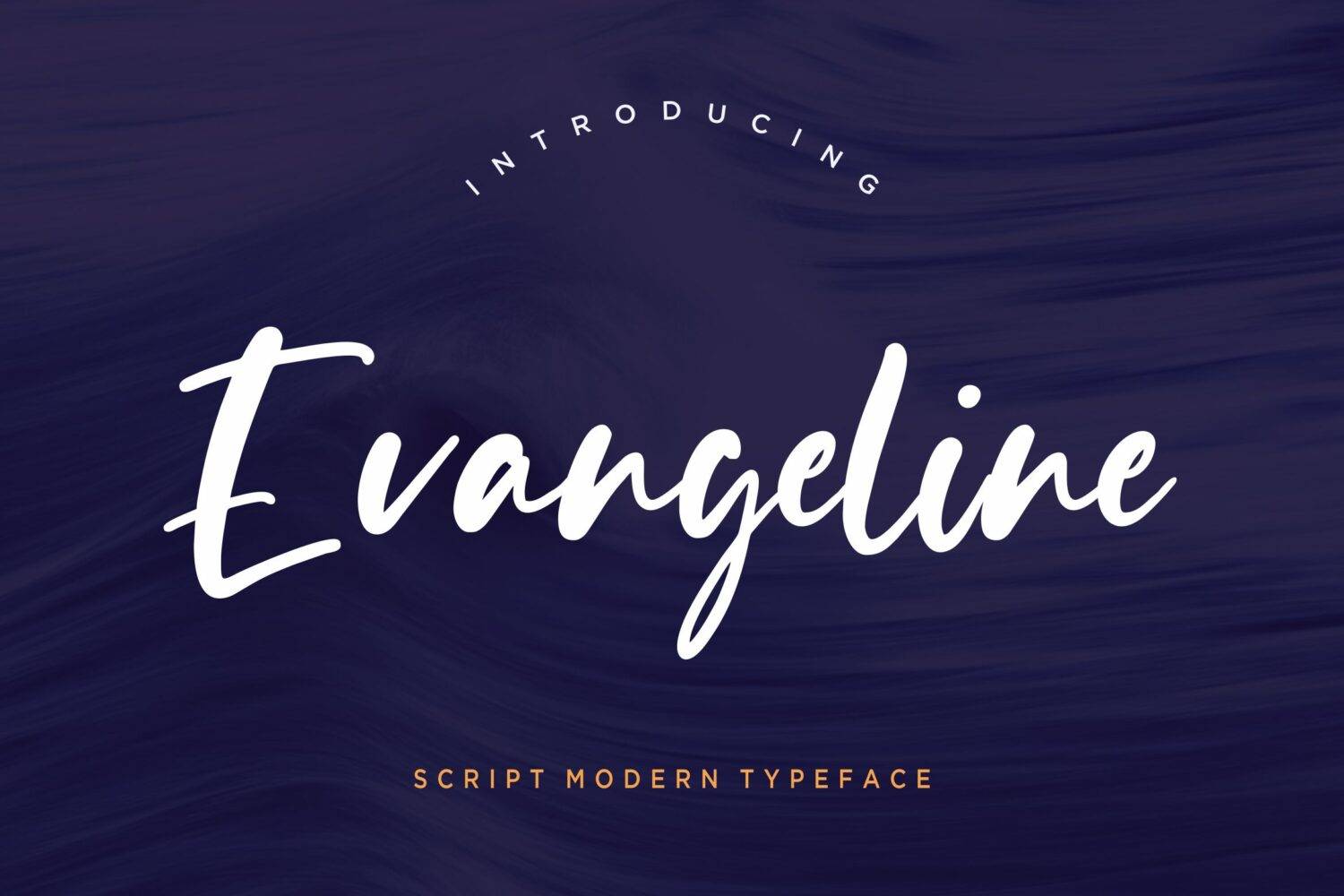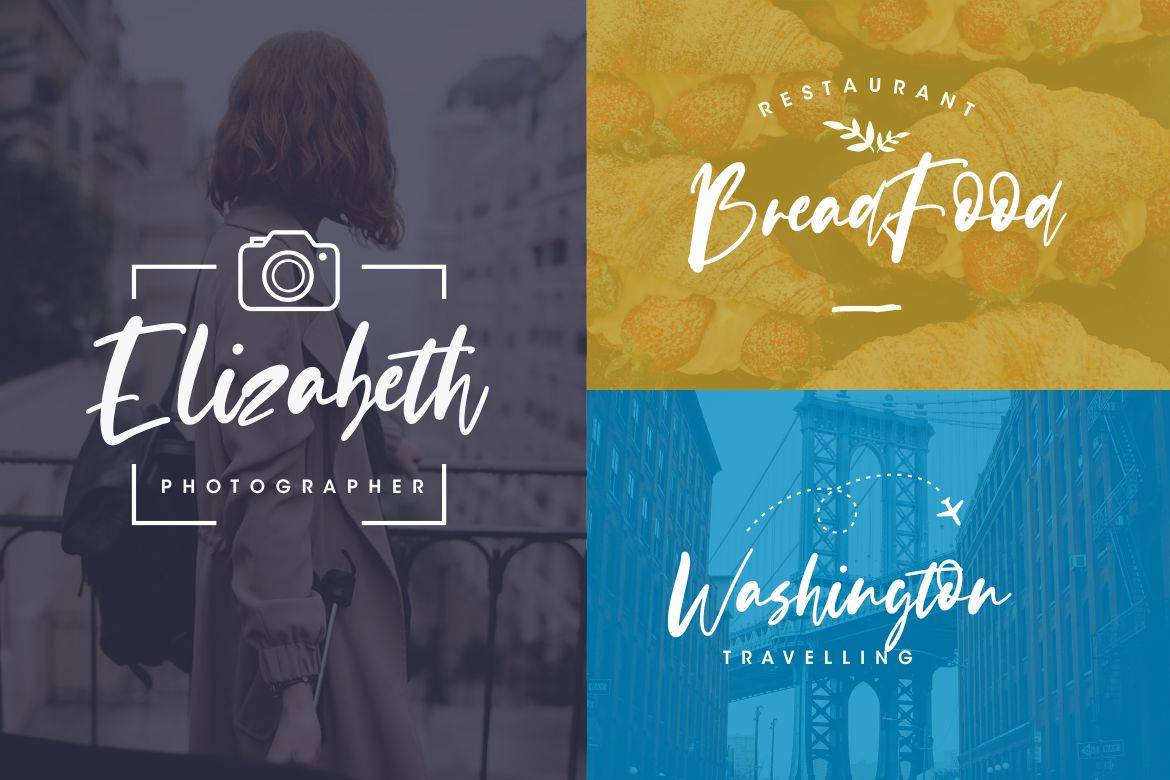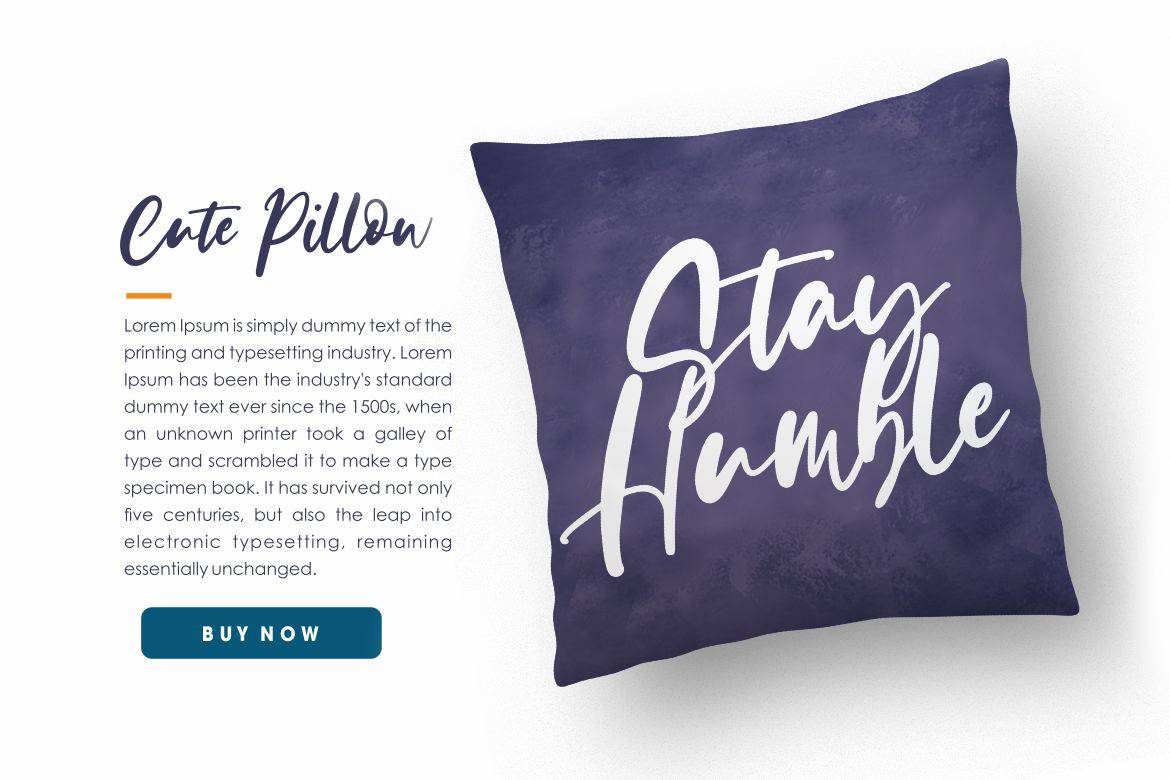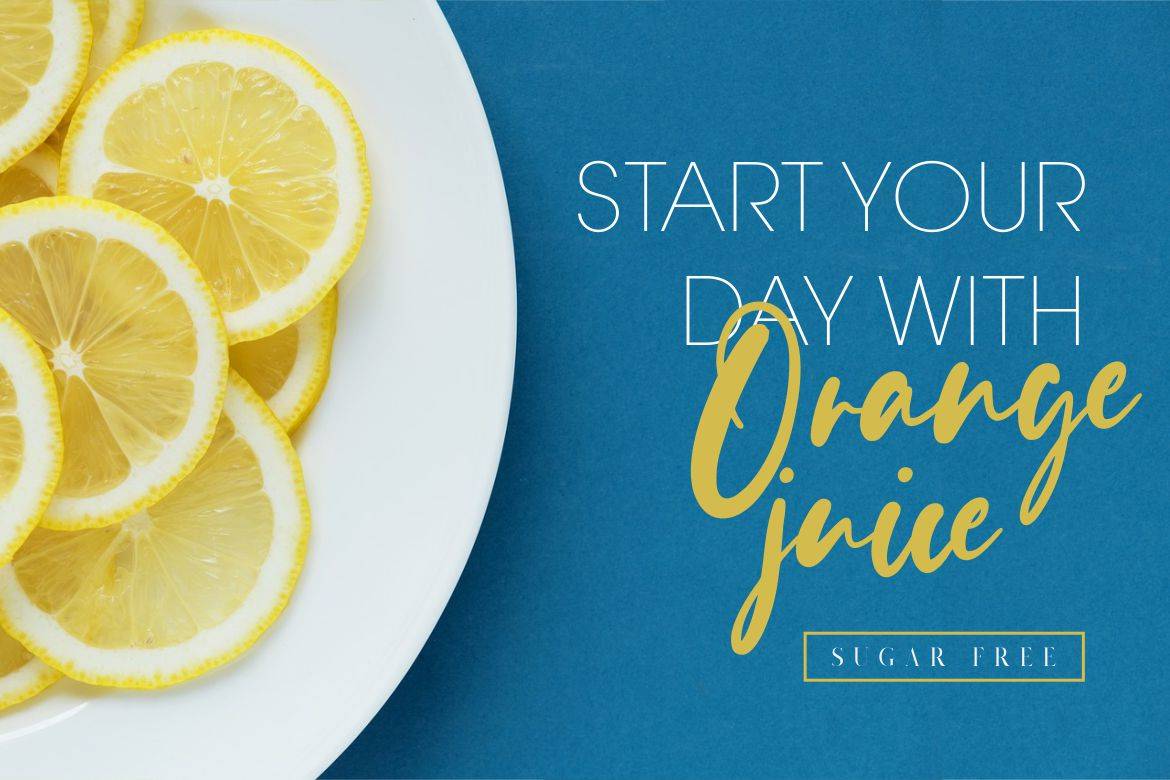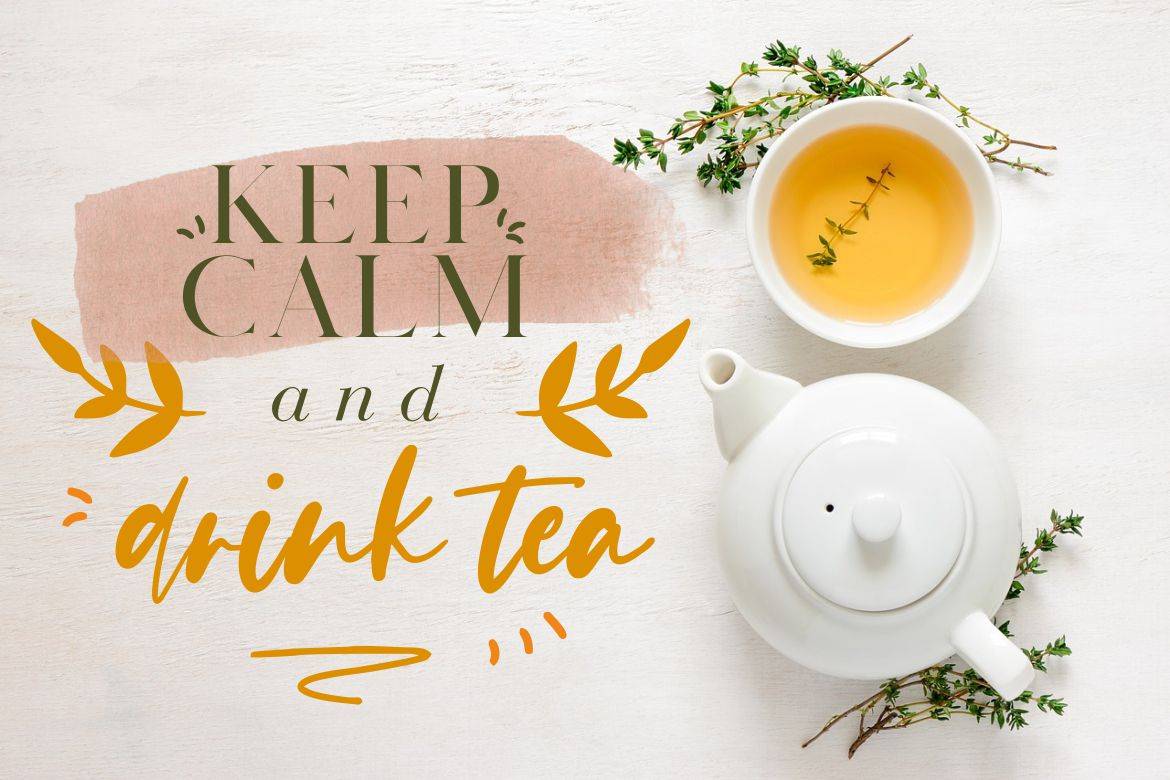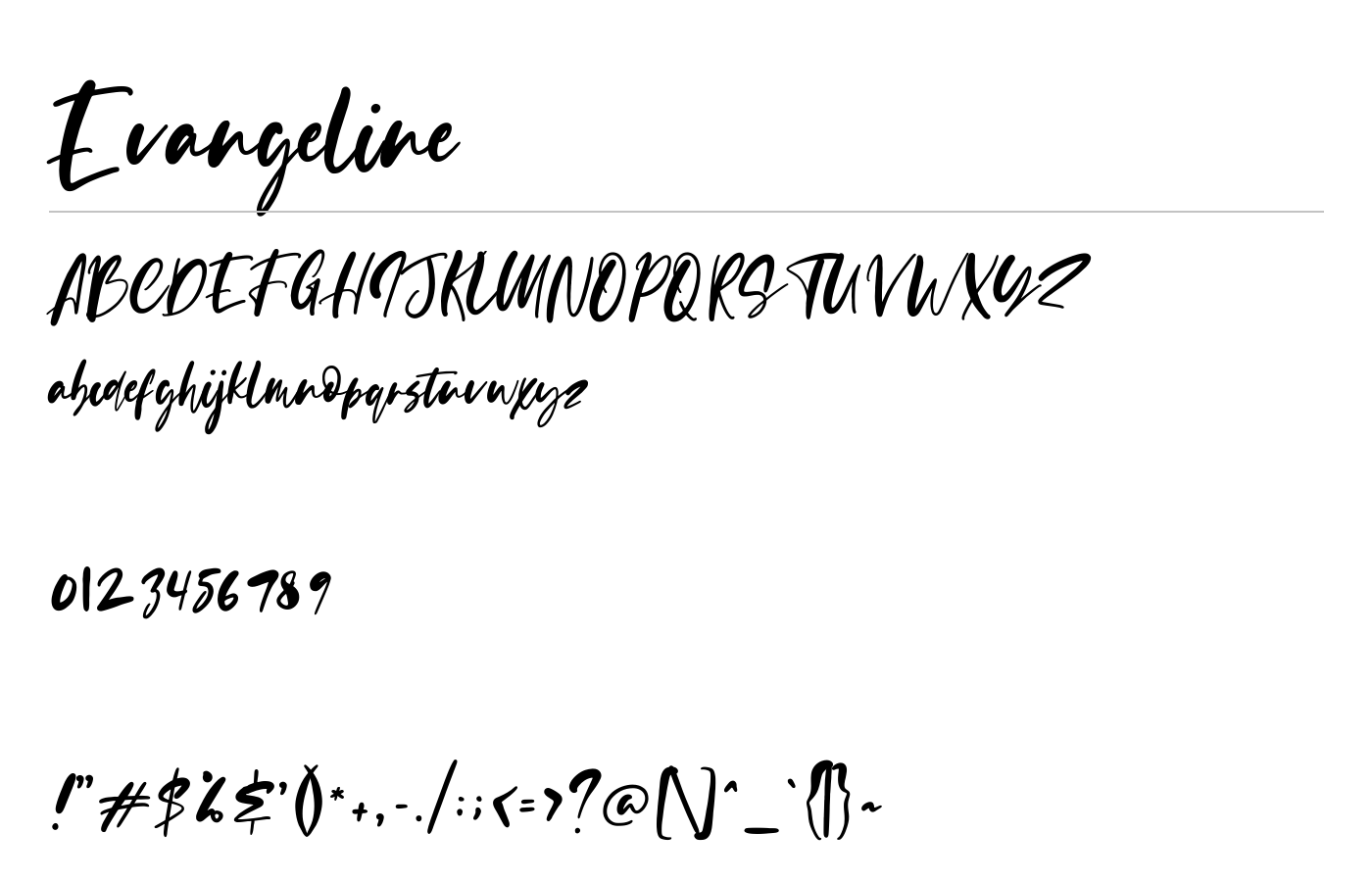
Evangeline Modern is a lively script font with a handwritten feel, featuring smooth, flowing strokes and a casual yet elegant style. Its medium weight and varied stroke thickness create a dynamic, natural look that works well for creative branding, invitations, and modern editorial designs. This font adds a personal, approachable touch that enhances projects seeking a stylish but friendly vibe.